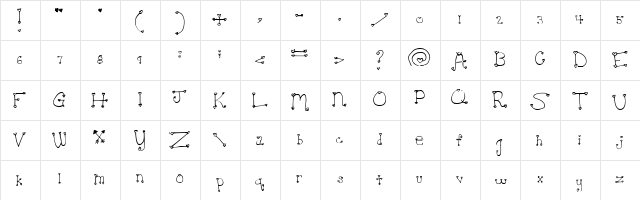
Heartache Teen Crush Regular
| Designer | Jennifer Heinicke, Fonts-A-Go-Go |
Heartache Teen Crush is a composed and adaptable typeface that performs quietly and consistently across a wide range of design contexts.